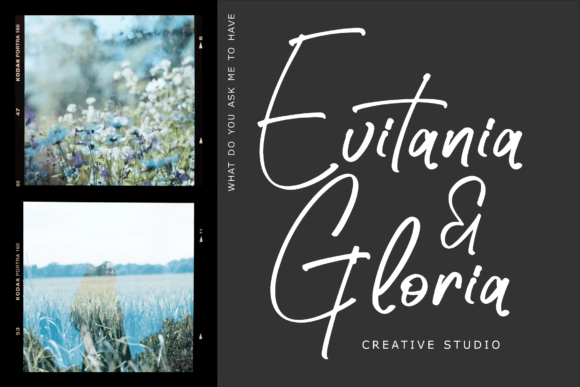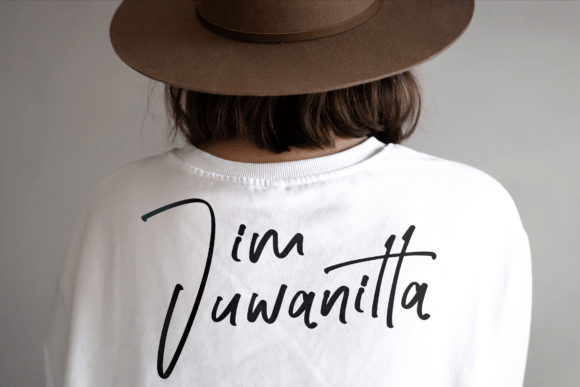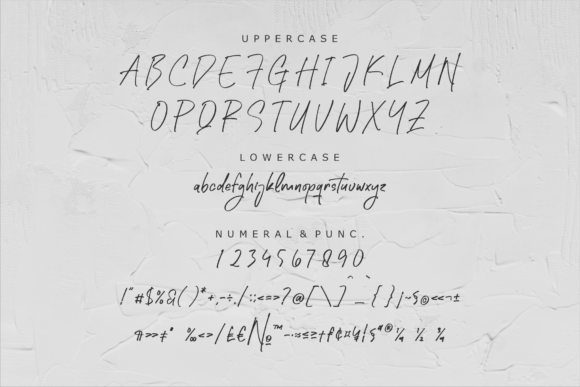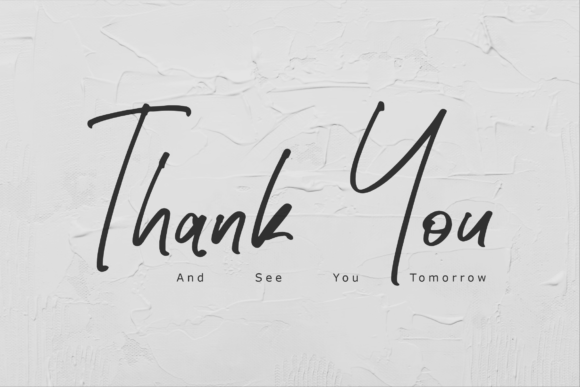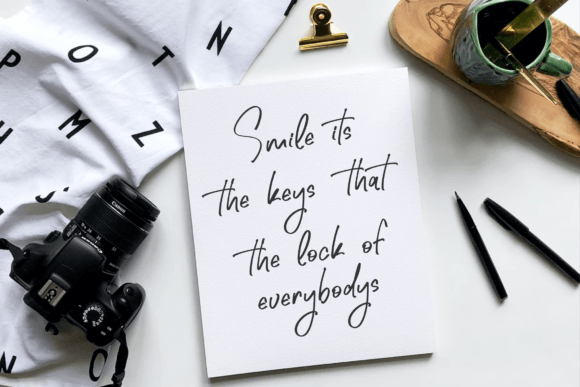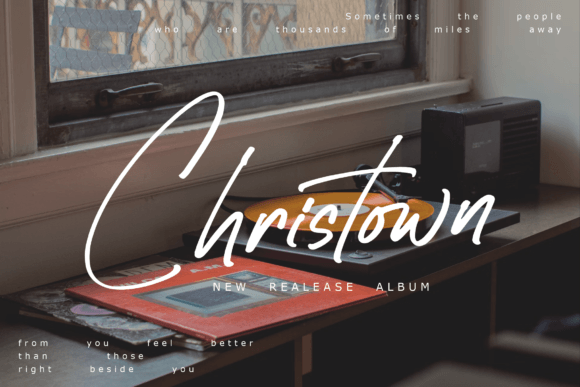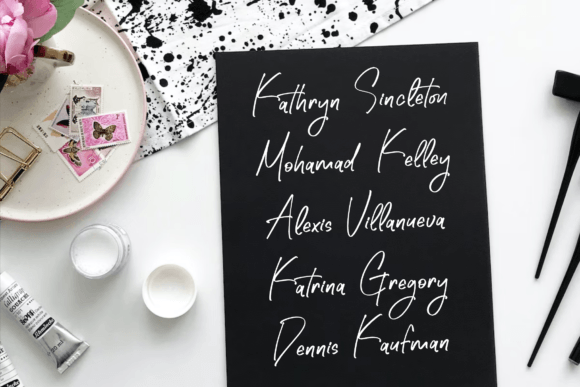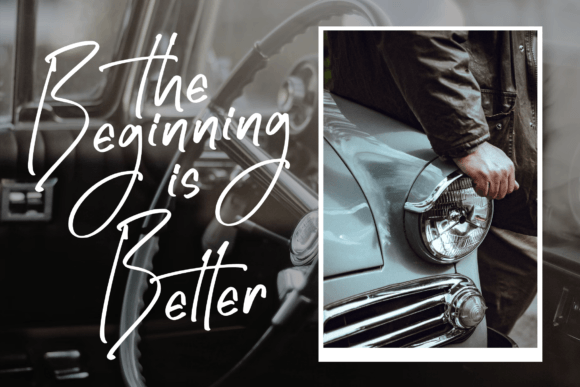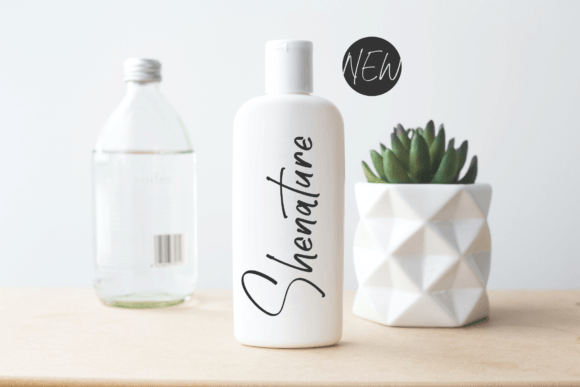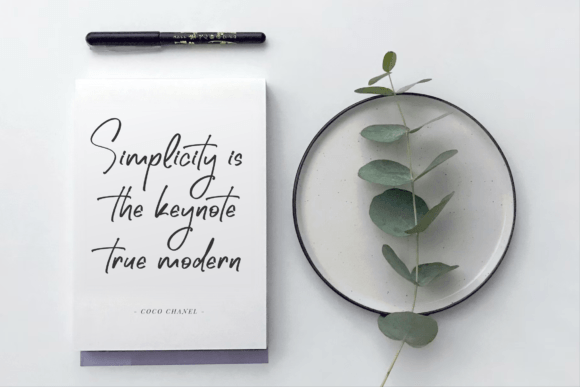
Chrowlie Vonhautten Font
A Modern Signature Font for Every Project
Chrowlie Vonhautten Font is a modern signature typeface designed to add a personalized, elegant touch to a wide range of creative projects. With its beautiful script style, this font is perfect for anyone looking to bring a stylish, authentic flair to their designs. Whether you’re working on logos, branding projects, product packaging, or wedding invitations, the Chrowlie Vonhautten Font offers a unique handwriting aesthetic that ensures your work stands out with a sophisticated and artistic appearance.
Perfect for Logos and Branding
For logos and branding, the Chrowlie Vonhautten Font is an ideal choice. Whether you’re creating a luxury brand logo, personalized brand identity, or corporate branding, this font adds a modern, distinctive touch that will make your brand identity unforgettable. Its signature style offers a personalized appeal that helps create memorable, eye-catching logos and brand materials. The Chrowlie Vonhautten Font is perfect for businesses in industries such as fashion, beauty, and lifestyle, where creating a refined yet approachable brand identity is essential.
Great for Product Packaging and Labels
For product packaging and labels, the Chrowlie Vonhautten Font adds a premium, sophisticated look to your designs. Whether you’re designing product packaging, gift tags, or labels, this font ensures your products look elegant and memorable. Its modern signature design gives your products a unique, artistic touch, making it perfect for luxury items, artisan products, and custom gifts. The Chrowlie Vonhautten Font helps convey your product’s high-quality appeal while keeping it approachable and distinctive.
Ideal for Mugs, T-shirts, and Merchandise
For mugs, t-shirts, and other merchandise, the Chrowlie Vonhautten Font is a great choice. Whether you’re designing for custom apparel, gifts, or promotional items, this font’s beautiful script style gives your designs a personalized and artistic touch. Its modern handwritten appearance adds charm and character to any merchandise design, making it perfect for t-shirts, shopping bags, and homeware products. The Chrowlie Vonhautten Font ensures your merchandise feels unique and stylish, while maintaining a contemporary and approachable aesthetic.
Great for Invitations, Greeting Cards, and Special Events
The Chrowlie Vonhautten Font is also perfect for invitations, greeting cards, and special event materials. Whether you’re designing wedding invitations, thank-you notes, birthday cards, or event programs, this font adds a beautiful, elegant script touch to your designs. Its modern signature style makes it ideal for luxury events, personalized invitations, and custom greeting cards. The Chrowlie Vonhautten Font helps convey a sense of refinement and class, while still maintaining a personal and warm appearance.
Perfect for Photography and Watermarks
For photography and watermarks, the Chrowlie Vonhautten Font offers an elegant and artistic feel that perfectly complements your images. Whether you’re adding a watermark to your photographs, art prints, or digital artwork, this font gives your work a unique, handwritten signature that feels personalized and professional. The Chrowlie Vonhautten Font enhances your images with a modern yet timeless appeal, making it perfect for photographers, artists, and content creators who want to add an authentic touch to their visuals.
Versatile, Legible, and Elegant
Despite its elegant script design, the Chrowlie Vonhautten Font remains legible and easy to use. The consistent letterforms and well-spaced characters ensure that your text remains clear and readable, even in smaller sizes or for longer passages. Whether you’re using it for headlines, captions, or body text, this font strikes the perfect balance between creativity and readability, making it suitable for a wide range of design applications, from print to digital media.
The Chrowlie Vonhautten Font is easy to use and integrates smoothly into most design software. Whether you’re working on logos, product packaging, social media content, or event invitations, this font ensures your designs look polished and professional while maintaining a personalized and artistic touch. Its versatility makes it perfect for both print and digital media, giving you the flexibility to use it across various projects with ease.
Add Elegance and Charm to Your Designs with Chrowlie Vonhautten Font
If you’re looking for a modern signature font that adds a personalized, elegant touch to your designs, the Chrowlie Vonhautten Font is the perfect choice. Whether you’re designing logos, product packaging, greeting cards, or social media posts, this font will help you create memorable, beautiful designs that stand out. Let the Chrowlie Vonhautten Font elevate your projects and leave a lasting impression with its timeless and refined appeal.